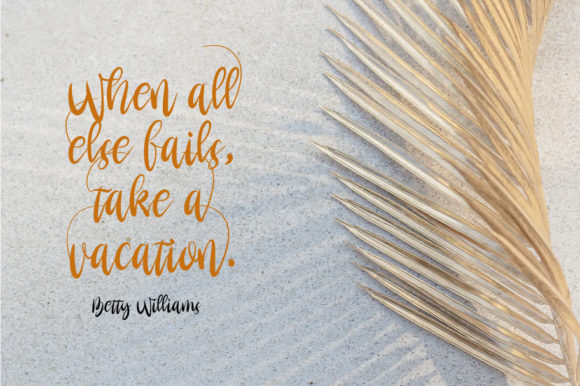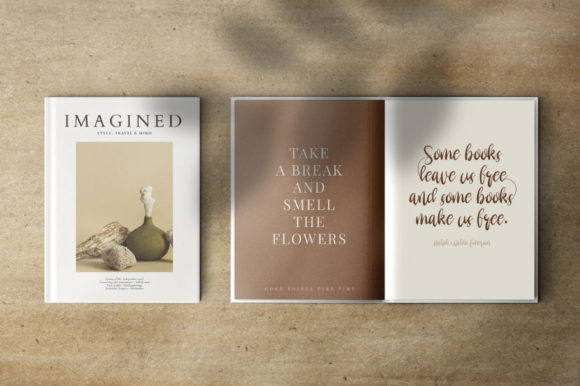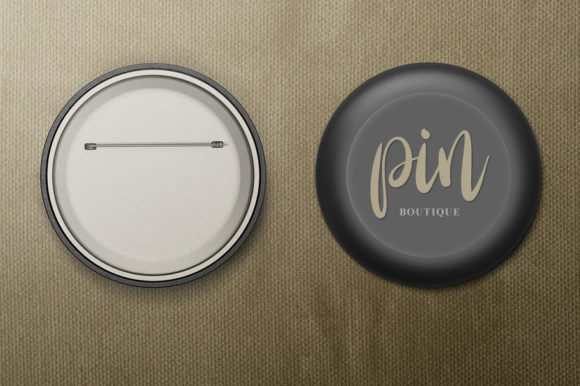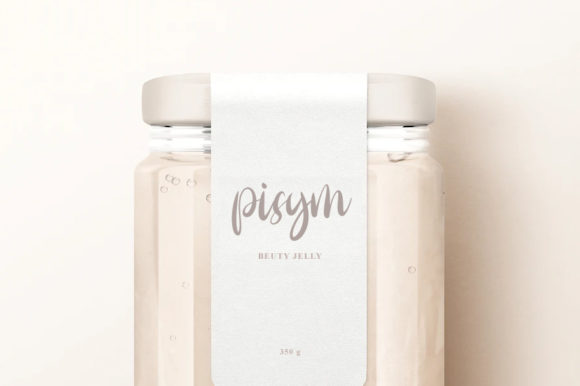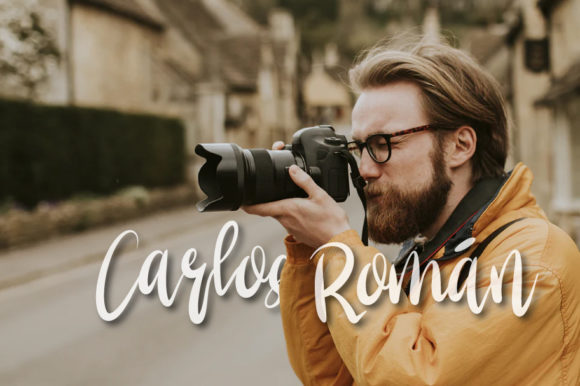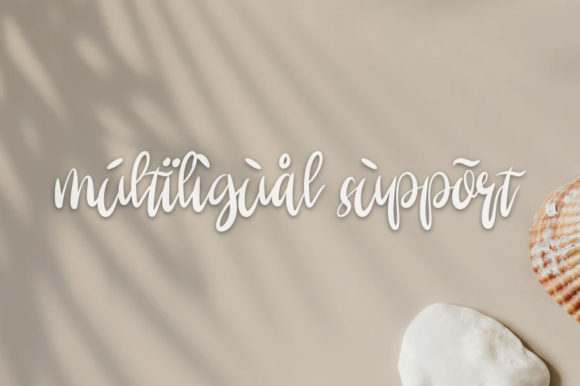
Batok Script Font: Elevate Your Designs with a Timeless Handwritten Style
Are you searching for a font that can add a touch of elegance and sophistication to your designs? Look no further than the Batok Script Font. This lovely and timeless handwritten font is perfect for creating eye-catching logos, branding, and quotes that will leave a lasting impression on your audience.
The Beauty of Batok Script Font
Batok Script Font is a beautiful, handwritten font that exudes a sense of classic charm and sophistication. Its elegant strokes and flowing lines make it perfect for designs that require a touch of refinement and poise. Whether you’re creating a logo, branding materials, or quotes, this font is sure to impress.
Key Features of Batok Script Font
- PUA Encoded: Batok Script Font is PUA encoded, which means you can access all of the glyphs and swashes with ease. This makes it simple to customize your designs and add unique touches.
- Handwritten Style: The font features a beautiful, handwritten style that is perfect for creating designs that feel personal and authentic.
- Elegant and Sophisticated: Batok Script Font has an elegant and sophisticated feel that makes it perfect for designs that require a touch of refinement.
Uses for Batok Script Font
Batok Script Font is a versatile font that can be used for a wide range of design projects. Here are some ideas to get you started:
- Logos: Create a memorable logo for your business or brand with Batok Script Font. Its elegant style makes it perfect for logos that require a touch of sophistication.
- Branding: Use Batok Script Font to create branding materials such as business cards, letterheads, and brochures. Its classic style makes it perfect for businesses that want to convey a sense of tradition and heritage.
- Quotes: Add a touch of elegance to your quotes with Batok Script Font. Its flowing lines and elegant strokes make it perfect for creating inspirational quotes and posters.
- Stationery: Use Batok Script Font to create beautiful stationery such as invitations, thank you cards, and greeting cards.
Why Choose Batok Script Font?
There are many fonts to choose from, but Batok Script Font stands out for several reasons:
- Unique Style: Batok Script Font has a unique style that sets it apart from other fonts. Its elegant strokes and flowing lines make it perfect for designs that require a touch of sophistication.
- Easy to Use: The font is PUA encoded, which makes it easy to access all of the glyphs and swashes. This means you can customize your designs with ease.
- High-Quality: Batok Script Font is a high-quality font that is designed to produce crisp and clear results, even at small sizes.
Tips for Using Batok Script Font
Here are some tips for getting the most out of Batok Script Font:
- Use it Sparingly: Batok Script Font is a elegant font, so it’s best to use it sparingly. Use it for headings or titles, and pair it with a simpler font for body text.
- Experiment with Colors: Batok Script Font looks great in a variety of colors, so don’t be afraid to experiment. Try pairing it with different background colors or textures to create a unique look.
- Pay Attention to Kerning: As with any font, pay attention to kerning to ensure that your text looks balanced and visually appealing.
In conclusion, Batok Script Font is a beautiful and timeless handwritten font that is perfect for designers and crafters. Its elegant style, PUA encoding, and high-quality design make it a great choice for a wide range of design projects. Whether you’re creating logos, branding materials, or quotes, Batok Script Font is sure to elevate your designs and leave a lasting impression on your audience.